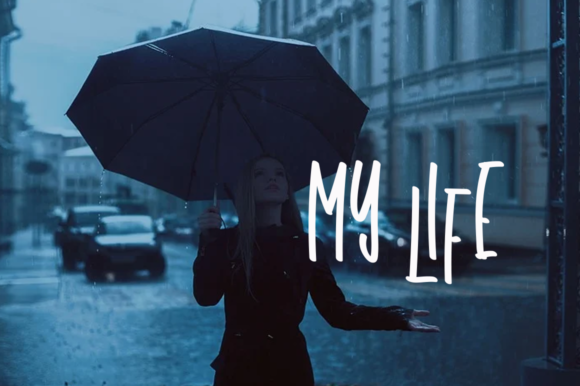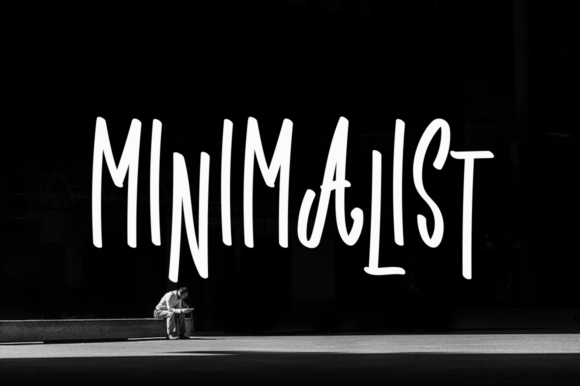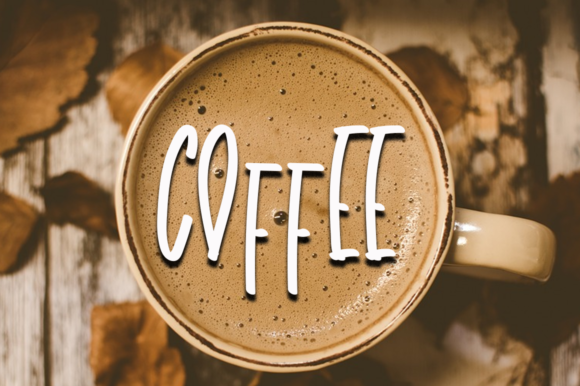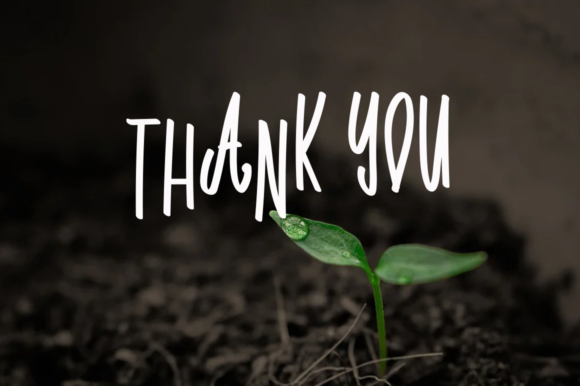
Camping Beach Font: The Perfect Addition to Your Design Projects
Are you a designer or crafter looking for a unique and playful font to add to your projects? Look no further than Camping Beach Font! This fun, quirky, and friendly handwritten font is sure to enhance the beauty of your designs and leave a lasting impression on your audience. In this article, we’ll take a closer look at Camping Beach Font, its features, and how you can use it to take your designs to the next level.
What is Camping Beach Font?
Camping Beach Font is a carefully crafted handwritten font that is designed to be balanced and varied. Not too thin and not too thick, this font strikes the perfect balance between elegance and playfulness. Its quirky and friendly vibe makes it perfect for a wide range of design projects, from camping and outdoor-themed designs to crafty and DIY projects.
Key Features of Camping Beach Font
- Balanced and varied: Camping Beach Font is designed to be balanced and varied, making it perfect for use in a wide range of design projects.
- Fun and quirky: This font has a fun and quirky vibe that is sure to add a touch of personality to your designs.
- Handwritten: Camping Beach Font is a handwritten font, giving it a personal and unique touch.
- Easy to read: Despite its playful nature, Camping Beach Font is easy to read, making it perfect for use in body text and headings.
How to Use Camping Beach Font in Your Design Projects
Camping Beach Font is a versatile font that can be used in a wide range of design projects. Here are a few ideas to get you started:
- Camping and outdoor designs: Use Camping Beach Font to create eye-catching camping and outdoor-themed designs, such as posters, flyers, and brochures.
- Crafty and DIY projects: This font is perfect for crafty and DIY projects, such as handmade cards, gift tags, and scrapbooking pages.
- Wedding and event designs: Camping Beach Font can also be used in wedding and event designs, such as invitations, programs, and signage.
Tips for Using Camping Beach Font Effectively
Here are a few tips for using Camping Beach Font effectively in your design projects:
- Use it as a headline font: Camping Beach Font is perfect for use as a headline font, where its playful and quirky vibe can really shine.
- Pair it with a simple font: For body text, pair Camping Beach Font with a simple font to create a nice contrast and make your design easy to read.
- Experiment with colors and textures: Don’t be afraid to experiment with different colors and textures to add depth and interest to your design.
Camping Beach Font is a fun, quirky, and friendly handwritten font that is sure to enhance the beauty of your design projects. With its balanced and varied design, this font is perfect for use in a wide range of projects, from camping and outdoor-themed designs to crafty and DIY projects. Whether you’re a designer or crafter, Camping Beach Font is a great addition to your font collection.